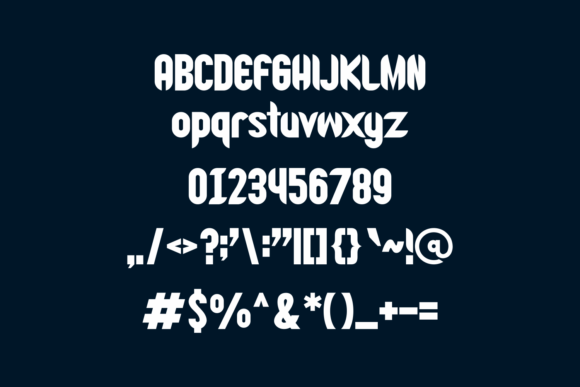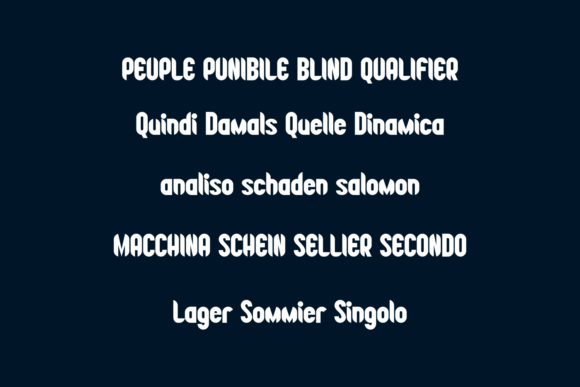
Introduction to Mariong Font
Mariong is a bold yet friendly sans display font.
Featuring the right amount of trendiness, this font will help you create cool and original designs .
Key Features of Mariong Font
Why Choose Mariong Font?
Mariong Font offers exceptional quality and versatility, making it a valuable addition to your design toolkit. Whether you’re creating for personal projects or commercial use, Mariong Font delivers professional results.